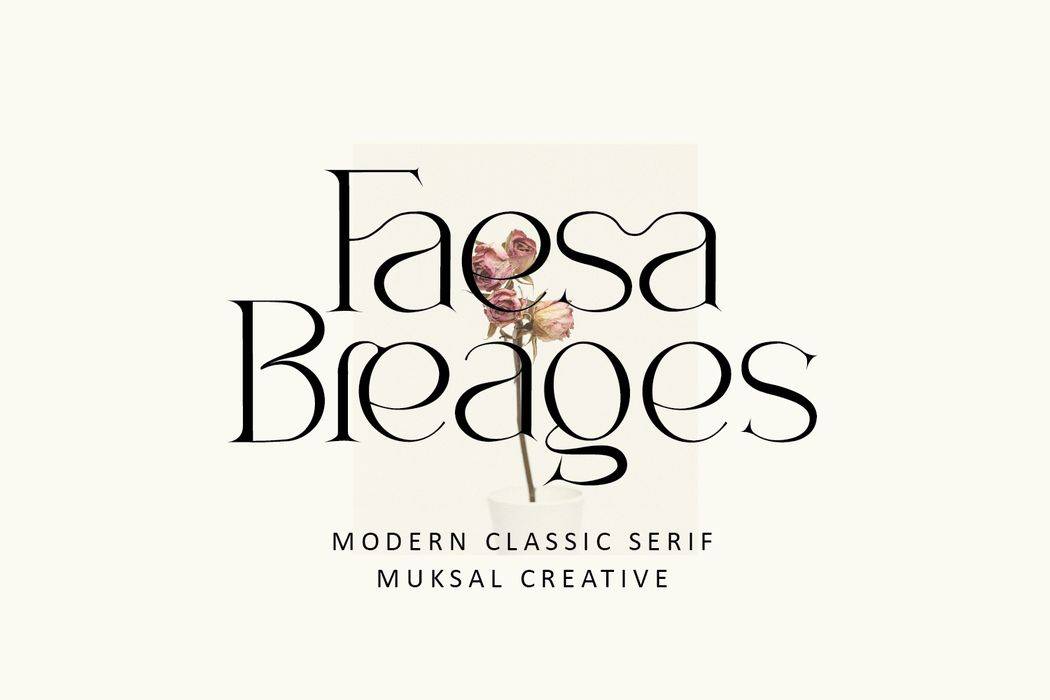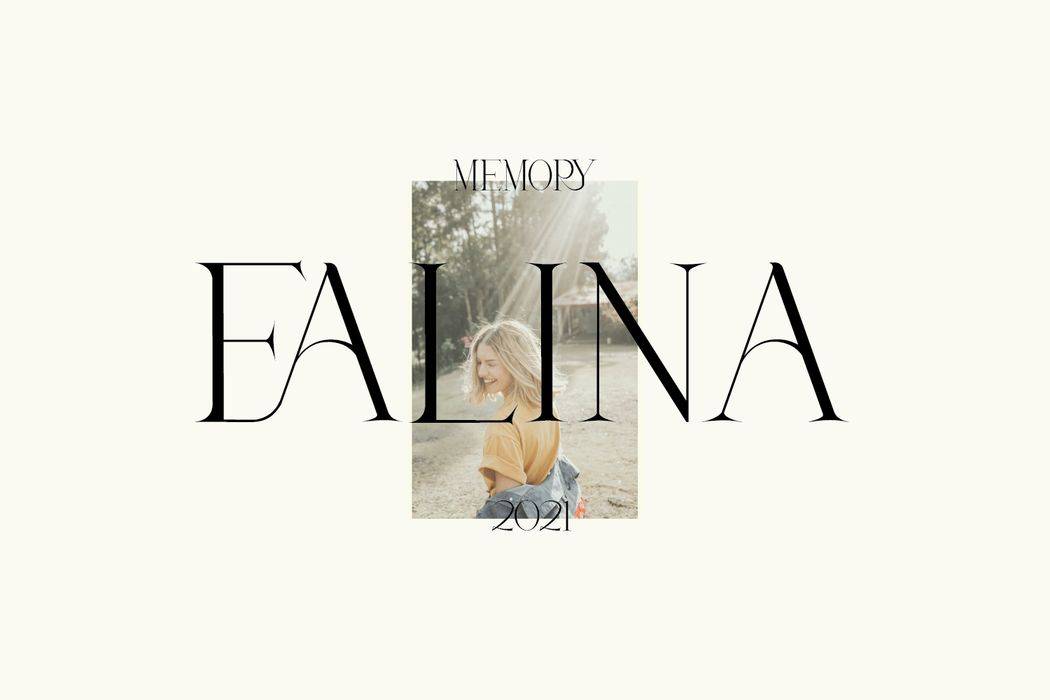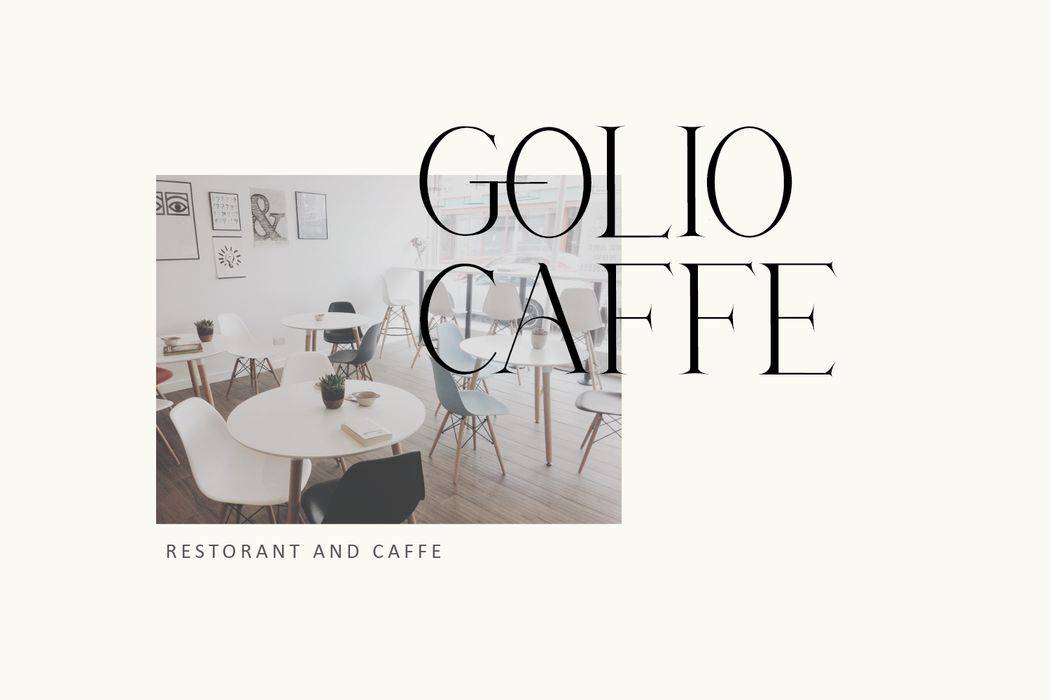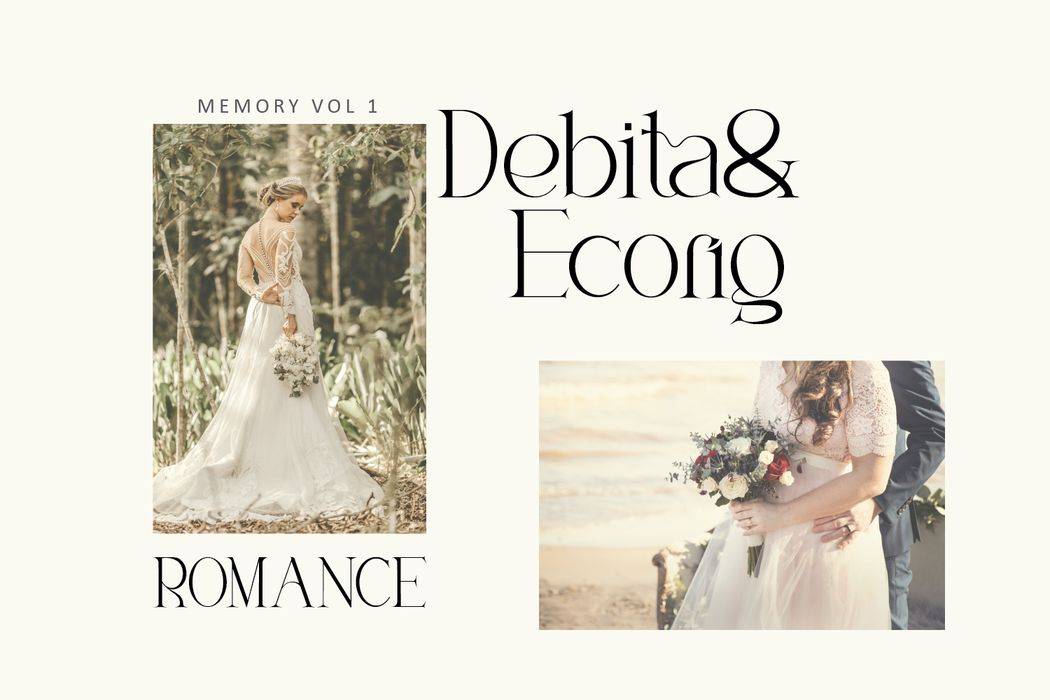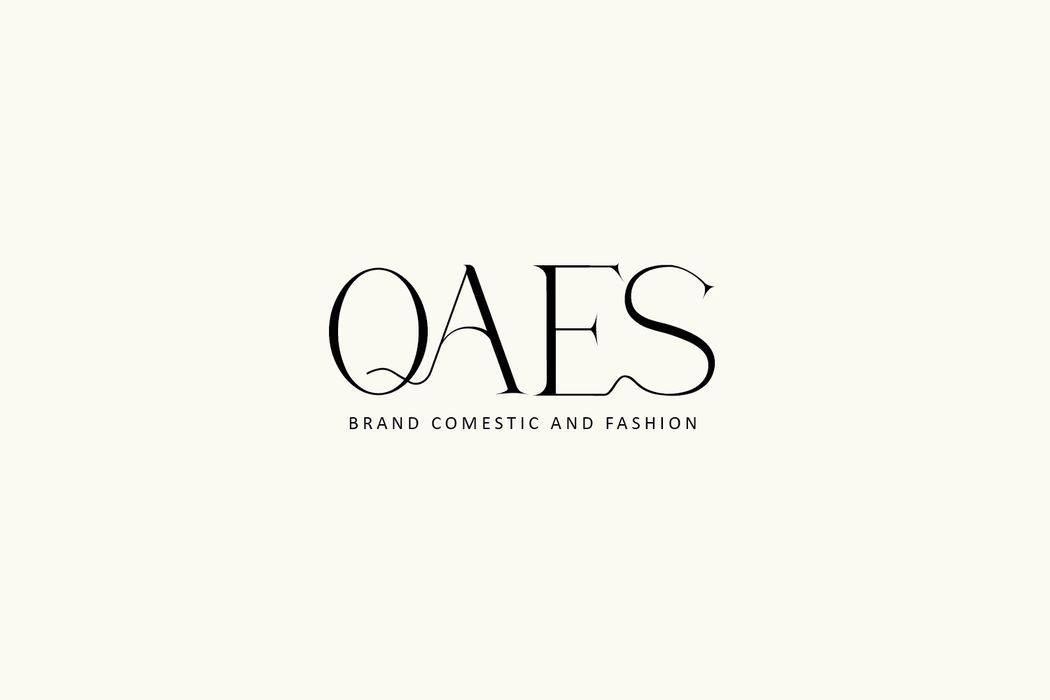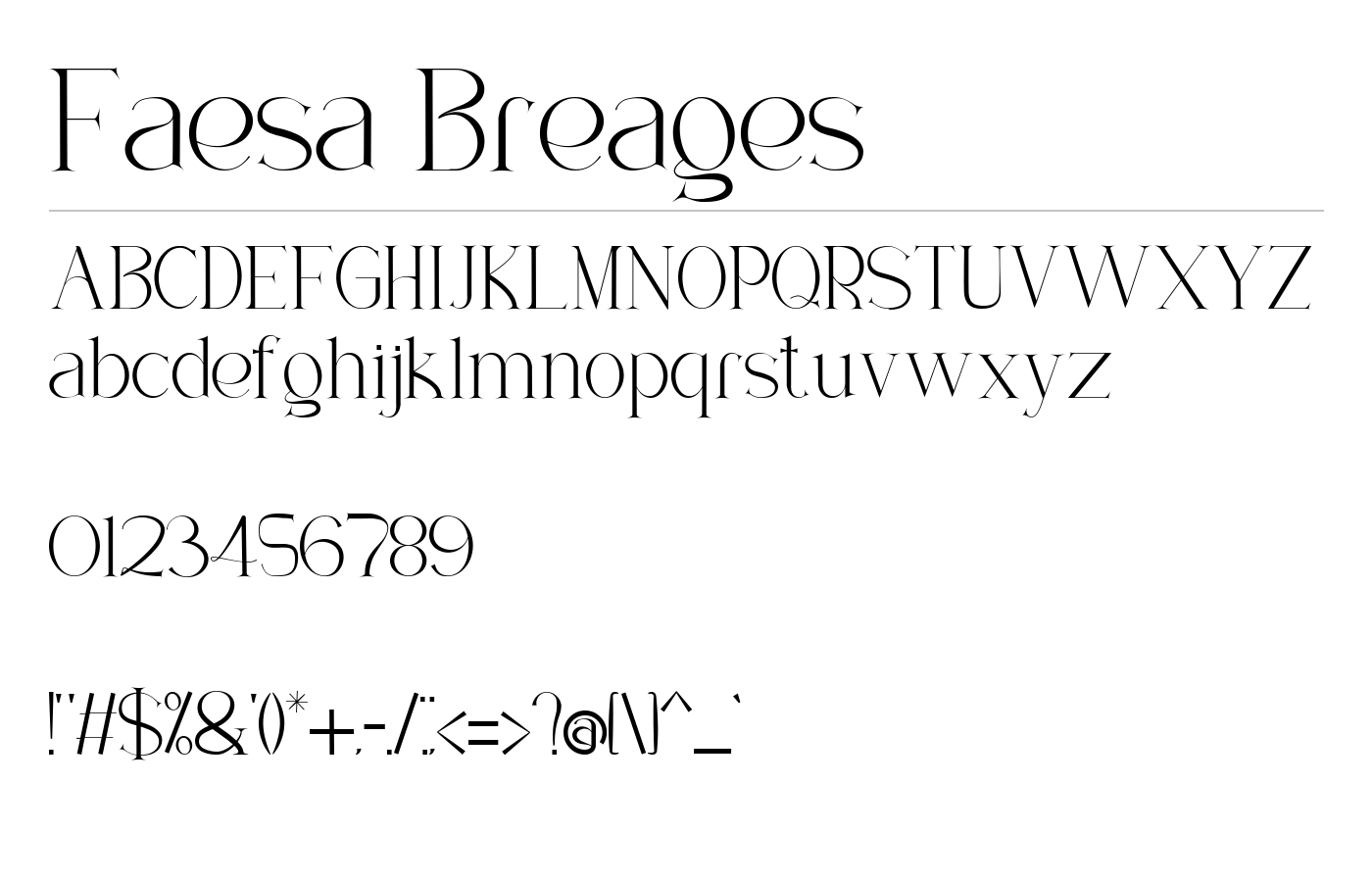
Faesa Breages is a sleek serif font with elegant, high-contrast strokes and delicate, sharp details that give it a refined, modern look with a slight vintage flair. Its slender letterforms and unique flourishes make it ideal for luxury branding, fashion, and sophisticated editorial designs where elegance and style are paramount. This font works best in headlines and logos, adding a touch of artistry and class to any project.
Faesa Breages Font
About Faesa Breages Font